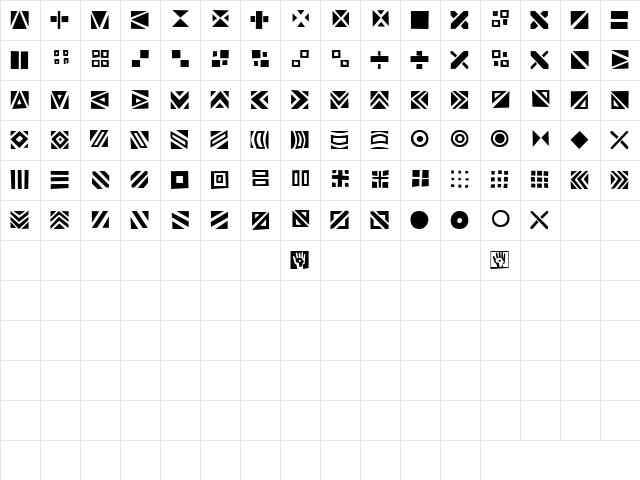
Bfribat Regular
Design Context for Bfribat Typeface
Bfribat is a composed and adaptable typeface that performs quietly and consistently across a wide range of design contexts.